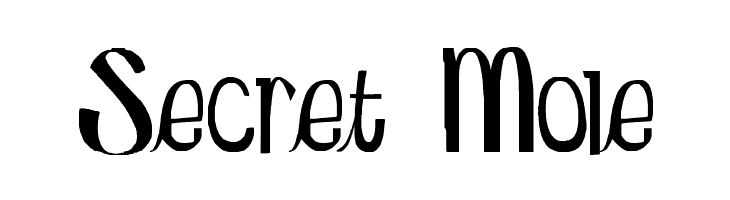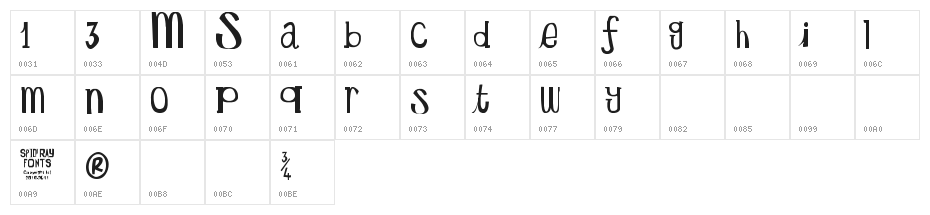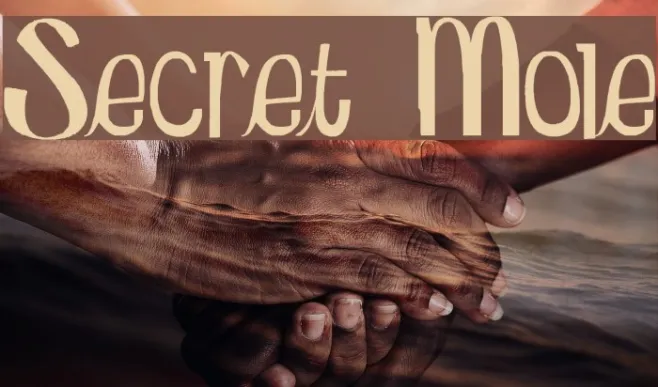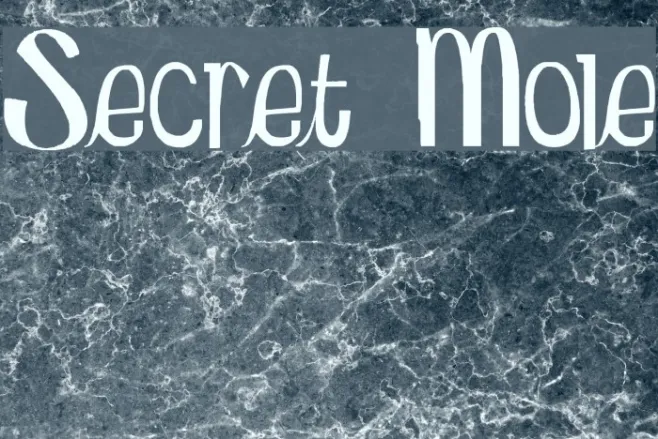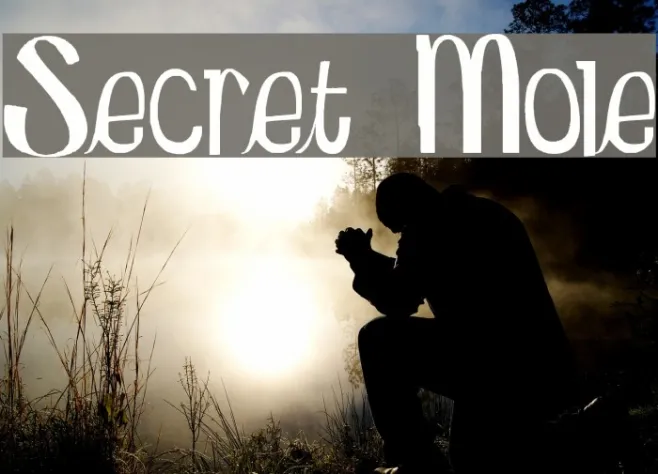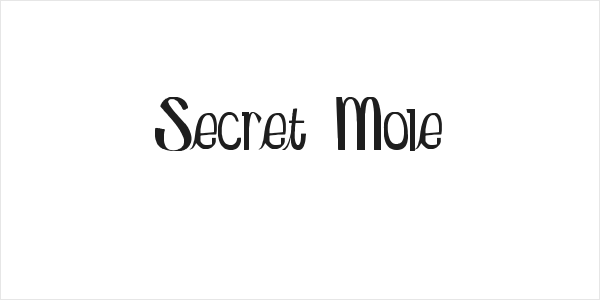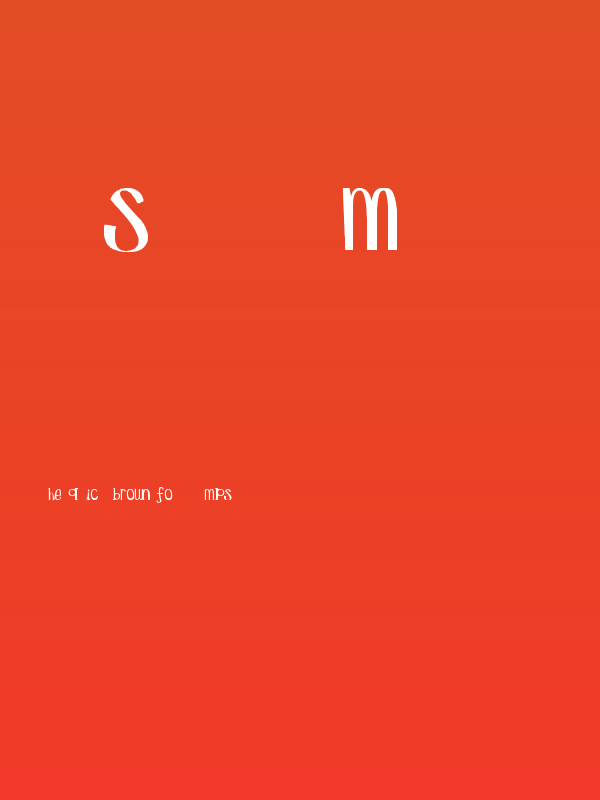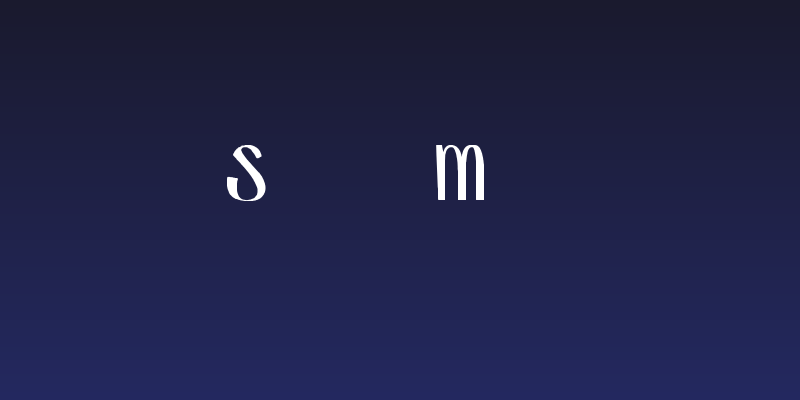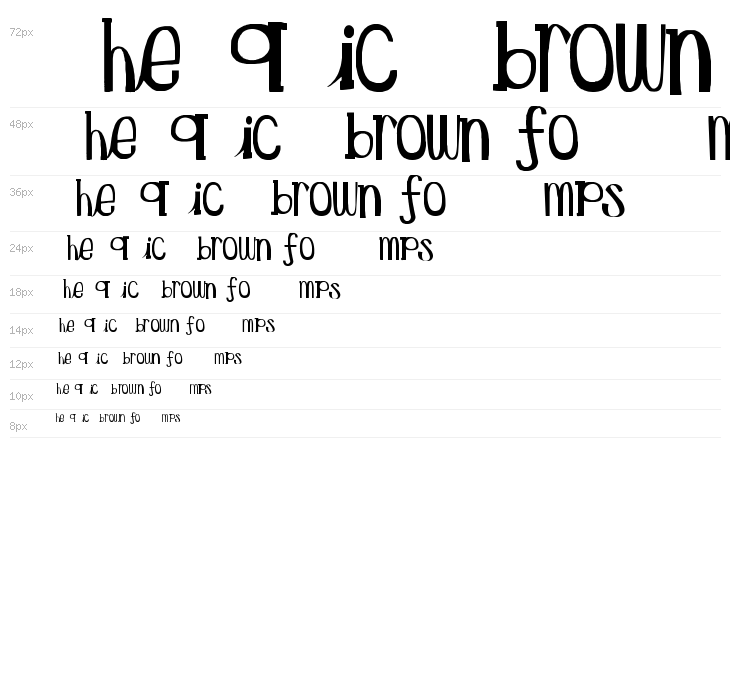
Secret Mole Font
Secret Mole Description
This font features a playful and quirky design with a mix of thick and thin strokes, creating a whimsical and artistic appearance. The characters have a unique, almost hand-drawn quality, with some letters displaying unexpected curves and angles. This gives the font a lively and dynamic feel, making it stand out in creative projects. The font's irregularities add to its charm, providing a sense of movement and energy. It's perfect for projects that require a touch of fun and creativity, such as children's books, playful branding, or artistic posters.
| Overall Style | Whimsical and artistic |
| Proposed Projects | Ideal for children's books, playful branding, artistic posters, and creative designs. |